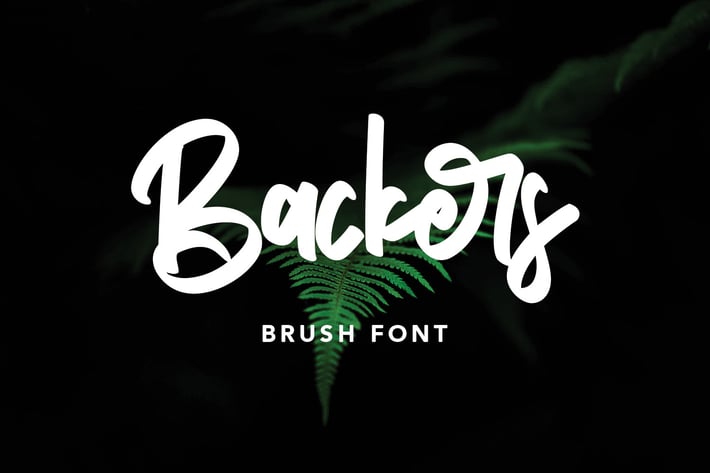
Backers Brush Font
Give your designs an authentic handcrafted feel. "Backers" is perfectly suited to signature, stationery, logo, typography quotes, magazine or book cover, website header, clothing, branding, packaging design and more.